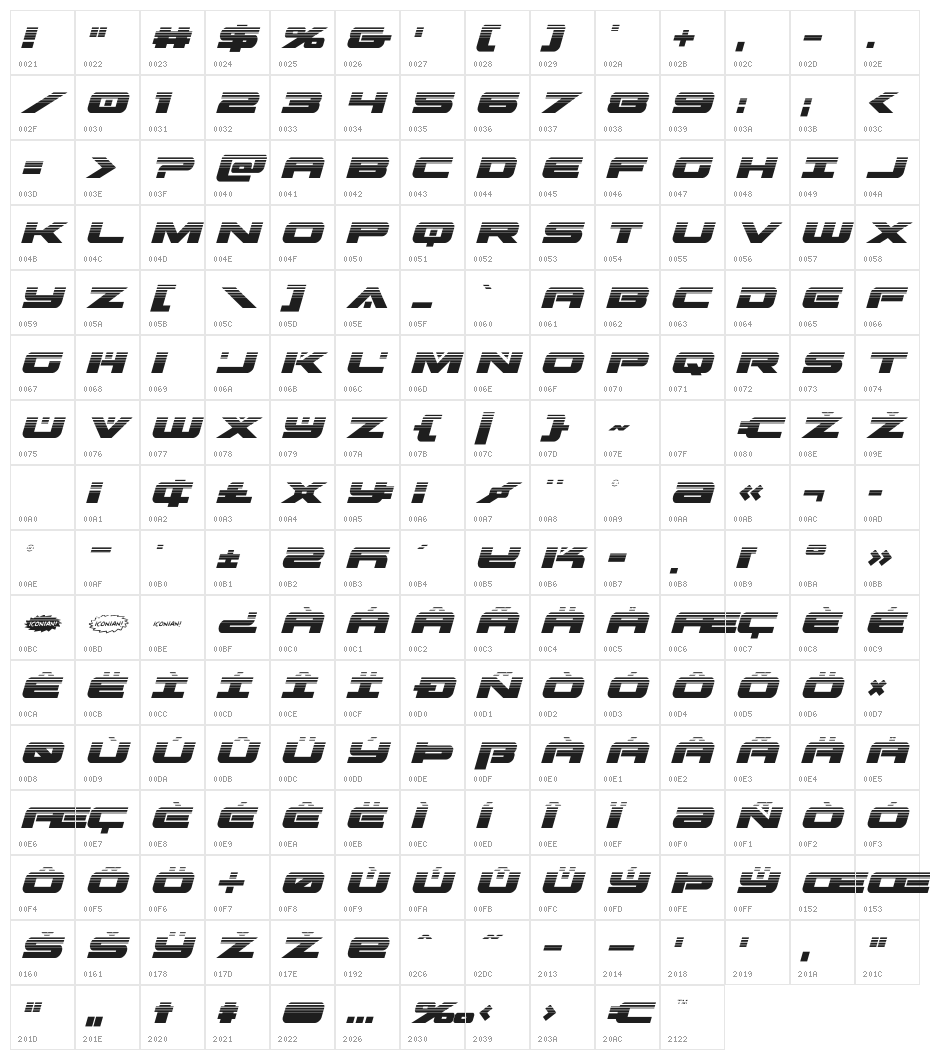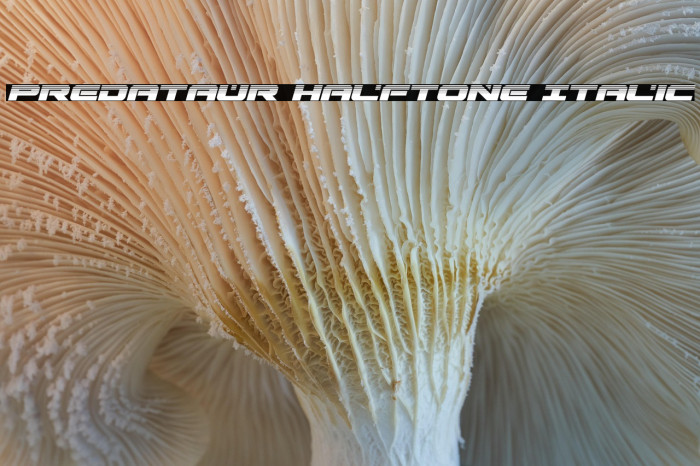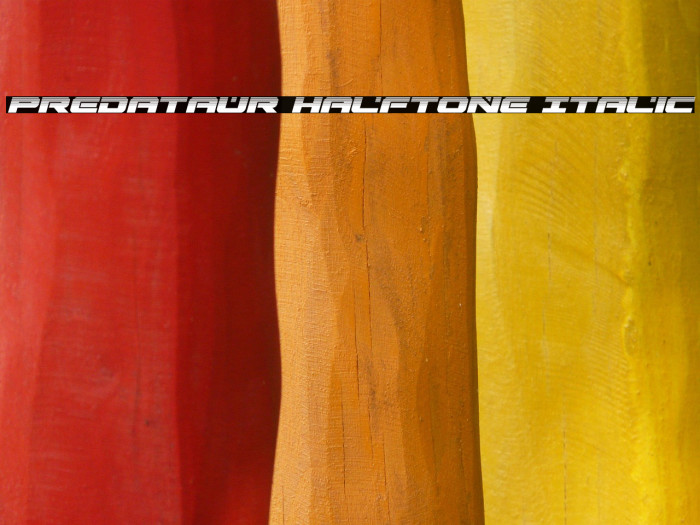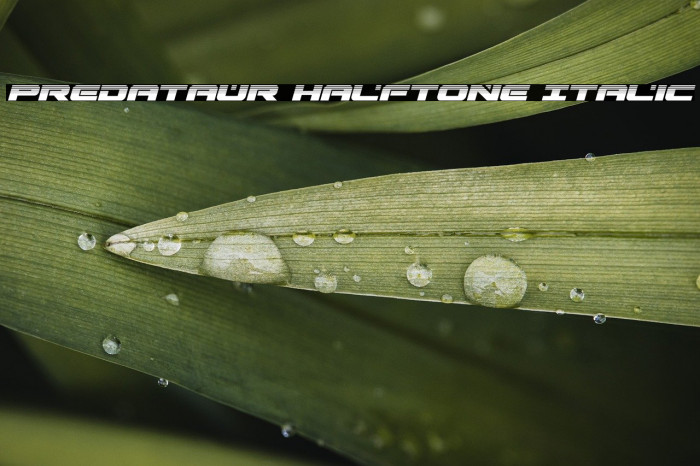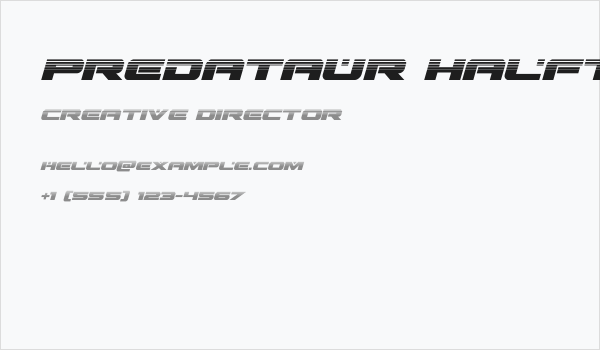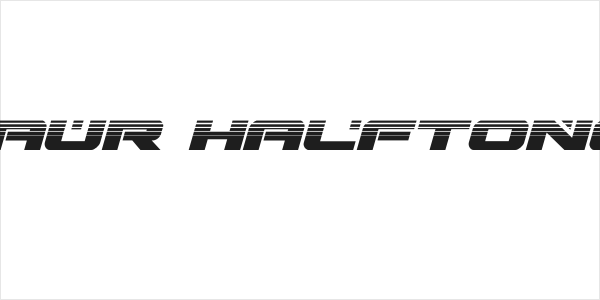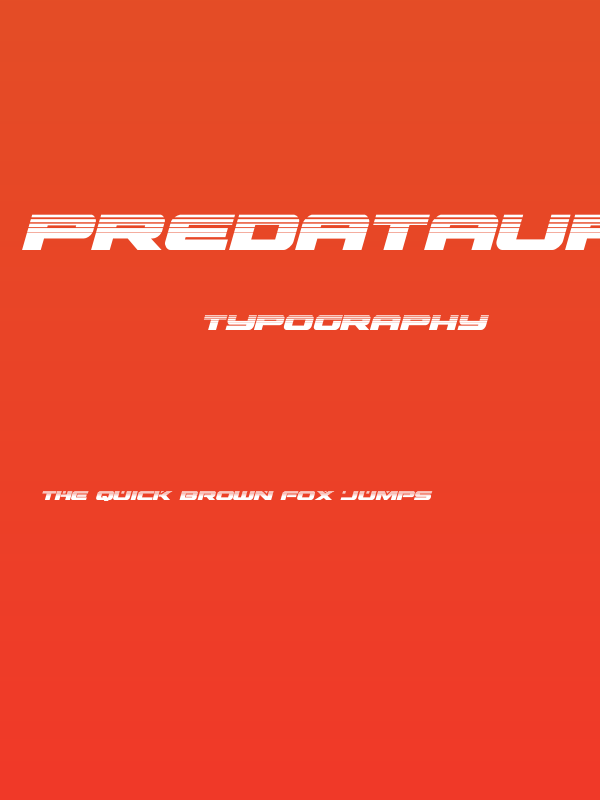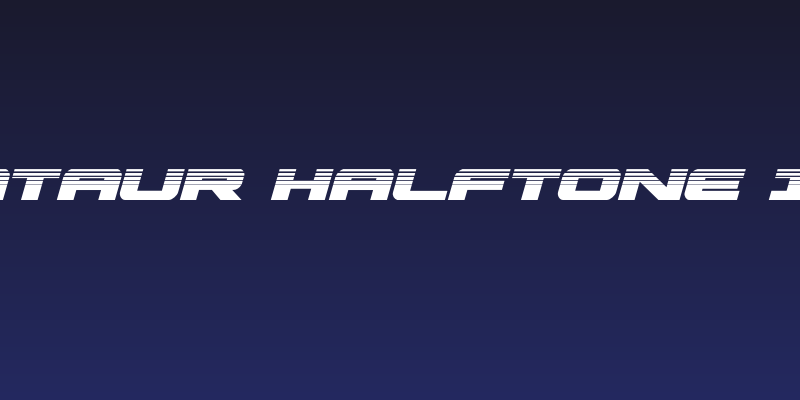
Predataur Halftone Italic Font
Predataur Halftone Italic Description
This font features a bold, futuristic design with a halftone effect that gives it a dynamic and energetic appearance. The italicized style adds a sense of motion and speed, making it ideal for projects that require a modern and edgy look. The characters are constructed with a series of horizontal lines that create a unique texture, enhancing its visual impact. The uppercase and lowercase letters maintain a consistent style, while the numerals and special characters complement the overall aesthetic. This font is perfect for creating eye-catching headlines, logos, and branding materials that need to stand out.
| Proposed Projects | Perfect for sports branding, tech company logos, futuristic posters, and video game titles. |